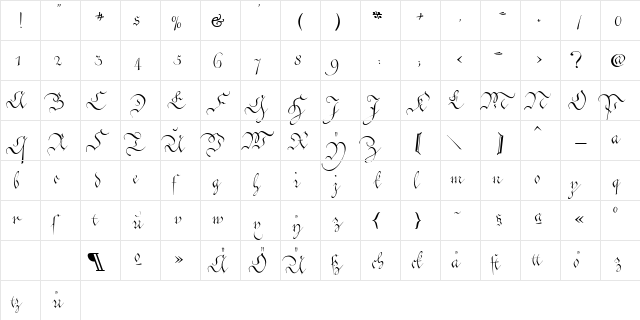
Cen Kanzley Aufrecht Regular
Design Context for C��en Kanzley Aufrecht Typeface
C��en Kanzley Aufrecht is a composed and adaptable typeface that performs quietly and consistently across a wide range of design contexts.